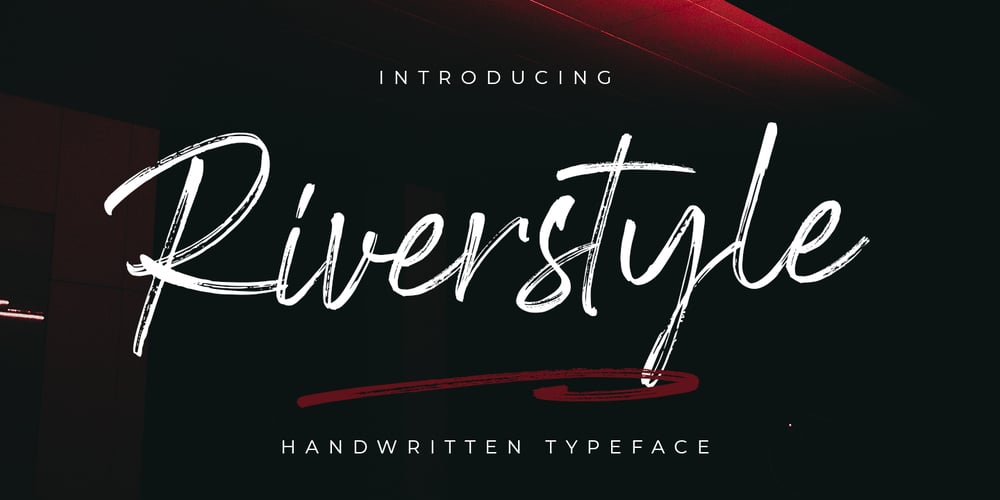
Riverstyle Font Family was designed by Mulkan Nazir and published by Great Studio. Riverstyle contains 2 styles and family package options. Riverstyle is a natural handwritten brush font that is textured and carefully crafted, with clear style and dramatic movements. This font is great for your next creative project such as logos, printed quotes, invitations, cards, product packaging, headers, logos, letterheads, posters, clothing designs, labels, etc. Riverstyle is complete with uppercase and lowercase letters, and coupled with upper and lower case letter alternates, and multi-language support, numbers, and punctuation. It also provides some extra ligatures and swash characters. Mail Support: If you have any question, please contact : greatstudio92@gmail.com Enjoy this font. Cheers, Great Studio